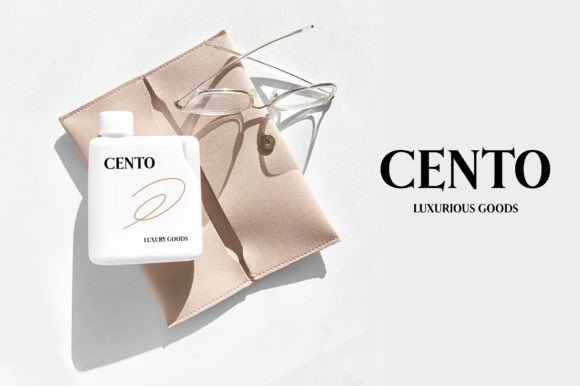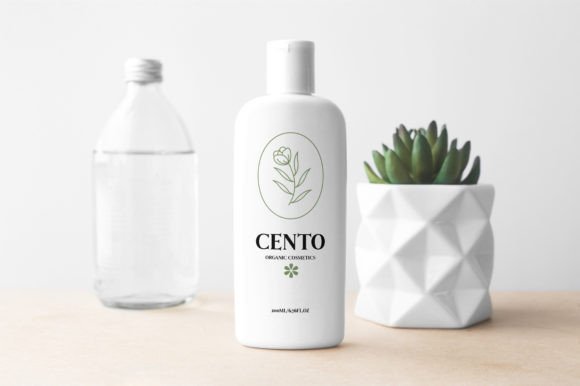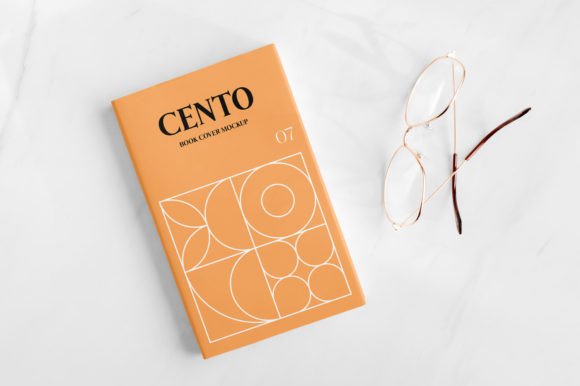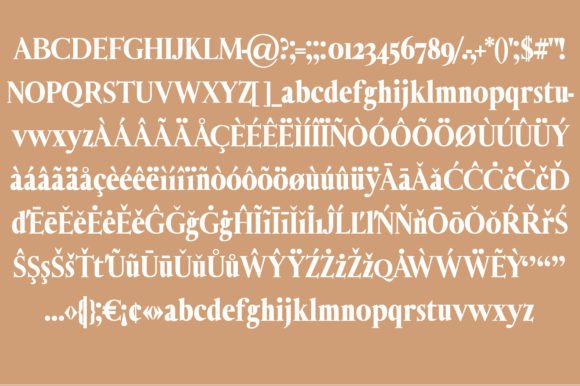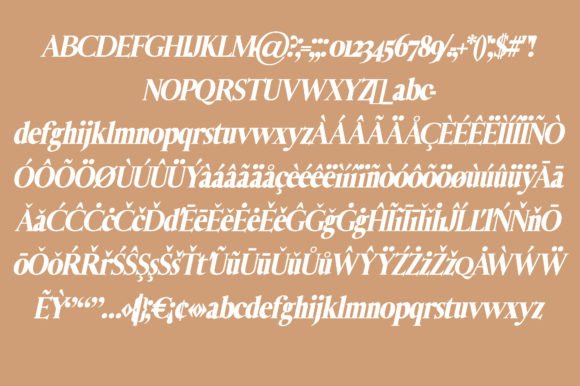
The Perfect Blend of Elegance and Minimalism: Discovering the Cento Font
As a designer, there’s nothing quite like the thrill of discovering a new typeface that perfectly captures the essence of your vision. For me, that moment came when I stumbled upon the Cento Font. Its clean and delicate glyphs structure had me hooked from the very start.
With its elegant and refined aesthetic, the Cento Font is a versatile choice for designers looking to create sophisticated and luxurious themes. Whether you’re designing a high-end fashion brand or a luxury hotel, this typeface is sure to make a statement. Its minimalist approach makes it the perfect choice for grabbing attention without overwhelming the senses.
As a valuable addition to any designer’s toolkit, the Cento Font offers a level of sophistication and refinement that’s hard to find in other typefaces. By incorporating it into your next project, you’ll be able to create designs that exude elegance and style, setting you apart from the rest.
Cento Font Key Features
• Font Family: Cento is a serif font family designed by Robert Slimbach, a renowned type designer. It’s known for its elegant and classic look.
• Character Set: Cento font includes a comprehensive character set, including Latin, Greek, and Cyrillic alphabets, as well as a range of punctuation and special characters.
• Font Size: Cento font is available in a range of font sizes, from 8pt to 72pt, making it suitable for a variety of applications, including body text, headings, and display text.
• Resolution: Cento font is optimized for use at high resolutions, making it ideal for use in print and digital applications where high-quality typography is essential.
• Unique Characteristics: Cento font features a unique combination of classic and modern design elements, including subtle flair on the terminals and a distinctive x-height, making it a versatile and stylish choice for a wide range of applications.
Cento Font Review
Overall, Cento Font is a solid choice for designers looking for a versatile, elegant serif font. Here’s what I think works well:
• ✨ Elegant and refined design: Cento Font exudes sophistication and is perfect for high-end branding, luxury goods, or publishing.
• ✨ Wide language support: It covers a vast range of languages, making it suitable for global projects.
• ✨ Beautiful serif details: The intricate details of the serifs add depth and character to the font.
• ⚠️ Limited font weight options: While it has a decent range of weights, it could benefit from more options for added flexibility.
• ⚠️ Not ideal for bold or dramatic headlines: The elegant design might not be the best fit for bold or eye-catching headlines.
• ⚠️ Might not work well in small sizes: The delicate details of the font might become difficult to read in very small sizes.
Overall, I think Cento Font is a great addition to any designer’s toolkit. It’s perfect for projects where elegance and sophistication are key. However, it might not be the best choice for every project, so it’s essential to consider its limitations before making a decision.
For a classic look, pair Cento with a simple background and bold text.
For a unique look, combine Cento with bold graphics and contrasting colors.
For a professional look, pair Cento with a clean background and minimal graphics.
Tips for Getting the Most Out of Cento Font
Use Cento Font for:
• Headings and titles
• Body text for classic or vintage-themed designs
• Combine with bold graphics and contrasting colors for a unique look
Experiment with different font styles and sizes to achieve the desired effect.